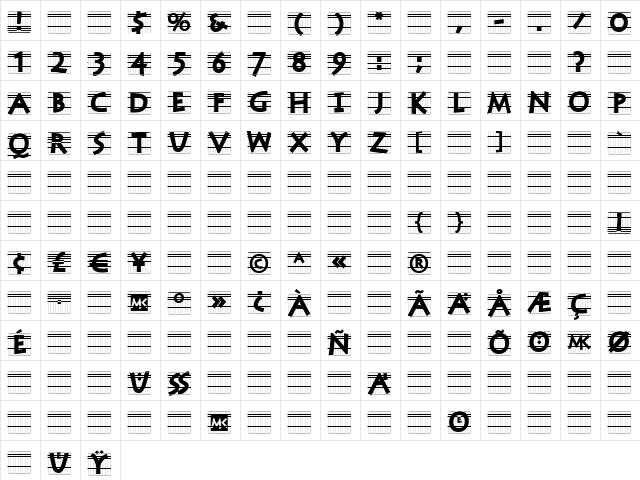
StoneCapsIngrid Regular
Design Context for StoneCapsIngrid Typeface
StoneCapsIngrid is a composed and adaptable typeface that performs quietly and consistently across a wide range of design contexts.